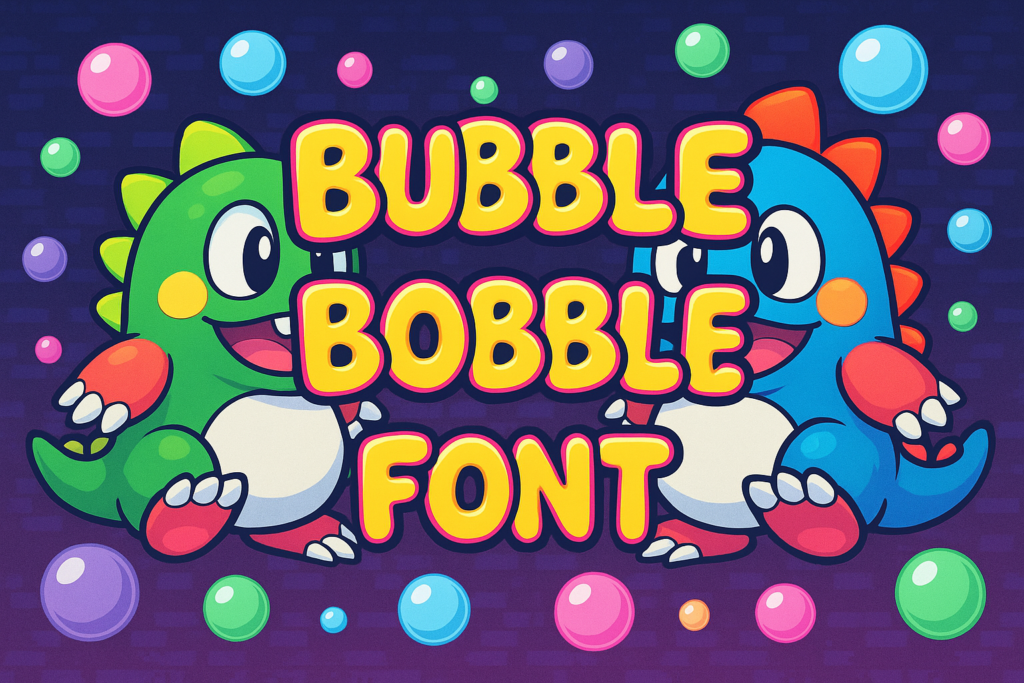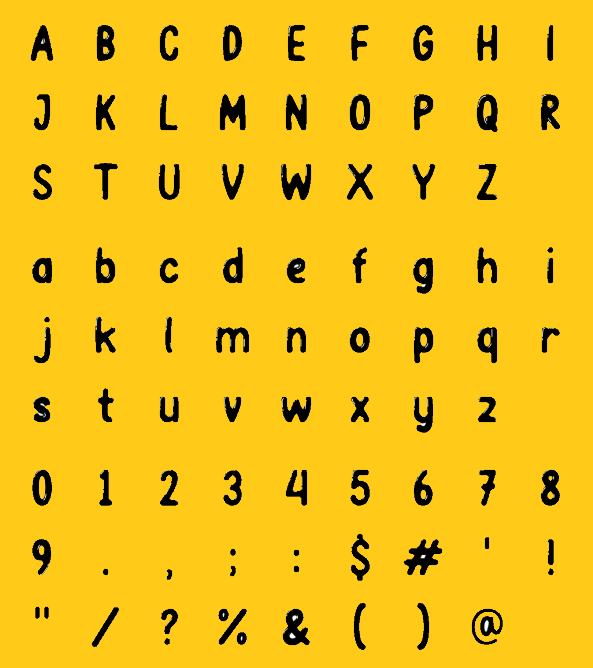
Bubble Bobble Font: Introduction
The Bubble Bobble font can instantly evoke nostalgic emotions, as it brings back fond memories of past arcade gaming. People who work as designers, as well as gamers and followers of popular culture, should understand the history and characteristics of this fundamental typeface, as these details provide endless creative opportunities.
This detailed guide unveils all essential information about the Bubble Bobble font, including its colorful background story, alongside unique characteristics, combined with applicable uses, together with contemporary alternatives and creative developers behind the game and font creation. Ready to bounce into the fun? Let’s go!
Overview of Bubble Bobble Font
The Bubble Bobble font appears throughout promotional materials and logos in addition to the game text of Bubble Bobble, which Taito Corporation released in 1986. Through its exaggerated and bubbly letters, the bubble bobble font represents the happy freedom of the game.
The Taito game designers created the distinctive graphics yet they did not make the font widely available. To meet the growing demand from designers and fans, Almarkhatype Studio later developed a Bubble Bobble-style font inspired by the original lettering. The font developers recreated the arcade nostalgia using modern digital concepts that users can easily operate.
Today, “Bubble Bobble” represents this unauthorized fan creation developed as the unofficial typeface which designers commonly use for retro design with a nostalgic and friendly look.
A Brief History: Bubble Bobble Game and the Font Revival
The release of Bubble Bobble during 1986 at arcades delivered more than addictive gameplay and cute dinosaur characters Bub and Bob because players fell in love with the game’s complete visual design including its typography.
- The arcade game developer Taito Corporation created the Bubble Bobble branding through thick lettering which resembled both the drifting bubbles within the game and its cute design elements.
- The icon became legendary since it represented both the popular video game heritage and the wider arcade era.
- Almarkhatype Studio produced a downloadable “Bubble Bobble” font to satisfy the ongoing market requirement and appeal of the design after recognizing its charm. This studio stands out as a creator of modern fonts.
These designers preserve Taito’s original style in their creation which allows contemporary designers to work with it.Modern typography skills from Almarkhatype Studio have maintained the Bubble Bobble spirit by working together with the creative design from Taito’s 1980s era.
Key Features of the Bubble Bobble Font
What makes the Bubble Bobble font stand out from the crowd? Let’s break down its signature traits:
1. Rounded, Inflated Shapes
Every letter appears air-filled, almost like a balloon ready to float away — a perfect match for a game centered around bubbles.
2. Playful Bounce
The letters don’t align perfectly on a baseline; they slightly shift up and down, mimicking playful movement.
3. Cartoon-Like Personality
Soft edges, exaggerated curves, and a lively spirit make the font feel alive — almost animated on the page.
4. Vibrant Color Pairing
While the base font is often a neutral shade, designers frequently add neon outlines or colorful fills to enhance its retro arcade look.
5. Bold, Readable Lettering
Despite its plump, playful forms, the font maintains excellent legibility, crucial for fast-paced, high-energy environments like an arcade game.
Practical Applications of the Bubble Bobble Font
The versatility and cheerful nature of the Bubble Bobble font make it ideal for a wide range of design projects:
1. Children’s Books and Games
The friendly curves and animated feel are perfect for storybooks, educational games, and children’s entertainment products.
2. Retro Gaming Projects
Designers recreating 80s and 90s aesthetics find this font an instant ticket to nostalgia.
3. Toy and Candy Branding
Products aimed at young audiences or retro-themed items can benefit from the Bubble Bobble font’s playful charm.
4. Event Promotions
Birthday parties, arcade nights, and themed events can use this font for invitations, banners, and posters to set a lighthearted tone.
5. Merchandise and Apparel
T-shirts, mugs, and other fan gear can channel retro vibes using Bubble Bobble-style lettering, appealing to vintage gaming fans.
Thanks to Taito Corporation’s original playful vision — and Almarkhatype Studio’s dedication to recreating it — designers today can harness the spirit of a classic arcade masterpiece in their own projects.
The Bubble Bobble font provides unlimited creative opportunities for anyone who desires to work with kids-related materials or retro-themed products or classic gaming aficionados.
Remarkable design proves itself as a timeless element which parallels the eternal nature of superior video games.